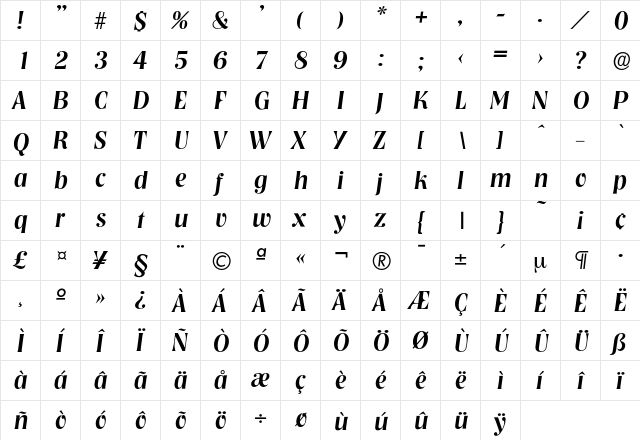
Nashville-MediumIta Regular Font Preview
Nashville-MediumIta Regular
Nashville-MediumIta Regular Font Details
Design Context for Nashville-MediumIta Typeface
Nashville-MediumIta offers clean, dependable letterforms without strong stylistic allegiance, making it a practical choice for designers who need flexibility.